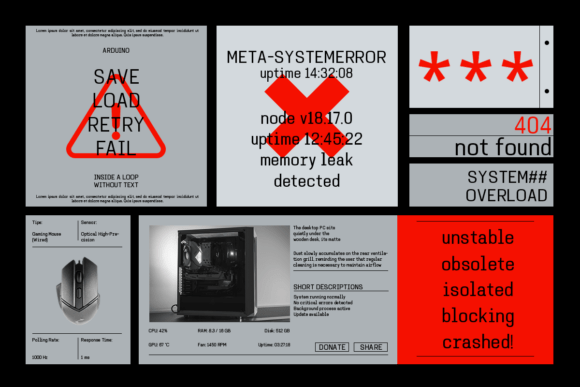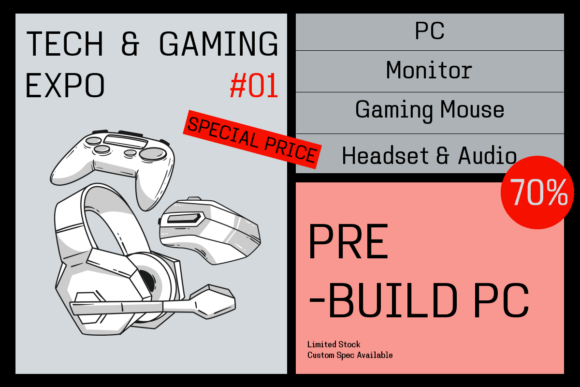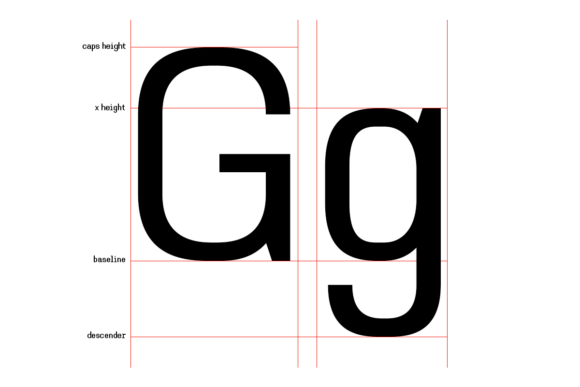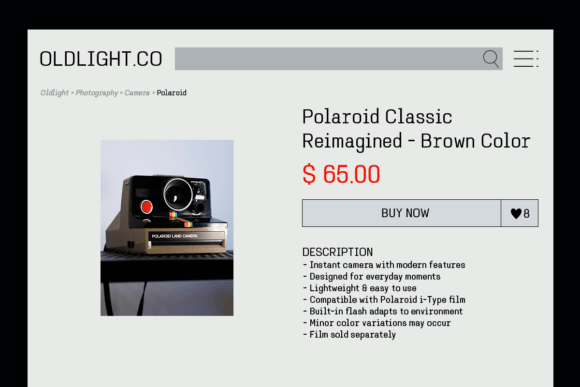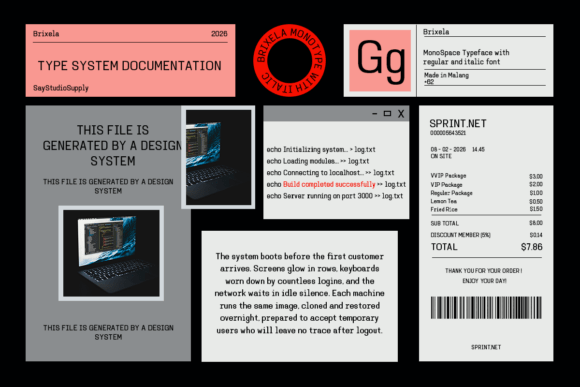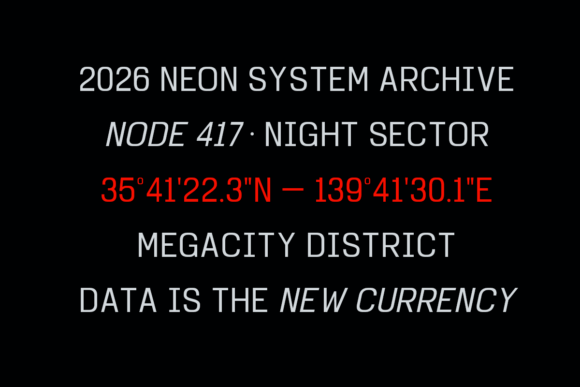
The Brixela Font: A Modern Monospace Marvel for Designers
I still remember the frustration of working on a project, pouring my heart and soul into the design, only to get stuck on one thing: finding the perfect font. It was for a tech startup, and I needed something that screamed modernity, professionalism, and clarity. That’s when I stumbled upon Brixela, a game-changing monospace sans serif typeface that has since become a staple in my design toolkit.
A Personal Review: What I Love About Brixela
Brixela has been a revelation, and here’s what I love about it:
- ✨ Exceptional clarity: Brixela’s clean geometric structure and balanced proportions make it perfect for digital designs, where legibility is key.
- ✅ Consistent letter width: This feature ensures perfect alignment, making it a dream to work with in layouts that demand structure and rhythm.
- 🔥 Versatility: Brixela shines across various design needs, from tech branding and UI interfaces to editorial layouts, posters, and social media visuals.
- 💻 Code-friendly: As a monospace font, Brixela is a coder’s best friend, making it ideal for coding, digital interfaces, and tech-related projects.
While Brixela is an outstanding font, it’s not without its quirks:
- 🤔 Limited emotional range: Brixela’s modern, technical feel might not be the best fit for projects requiring a more expressive or playful tone.
- ⚠️ Not ideal for body text: While Brixela is great for headings and UI elements, it might not be the best choice for lengthy body text due to its monospace nature.
Brixela was crafted with the needs of modern designers in mind. Its creator aimed to design a font that would excel in digital environments, providing exceptional clarity and versatility. Inspired by the geometric and modernist movements, Brixela combines technical precision with a sleek, contemporary aesthetic.
| What is Brixela’s primary use case? | Brixela is designed for digital designs, including tech branding, UI interfaces, editorial layouts, posters, and social media visuals. |
| Is Brixela suitable for body text? | While Brixela is great for headings and UI elements, it might not be the best choice for lengthy body text due to its monospace nature. |
| Can I use Brixela for coding and programming? | Yes, Brixela is an excellent choice for coding and programming due to its monospace nature and clean geometric structure. |
| Does Brixela come with OpenType features? | Yes, Brixela includes OpenType features, such as ligatures and stylistic alternates, to enhance your typography. |